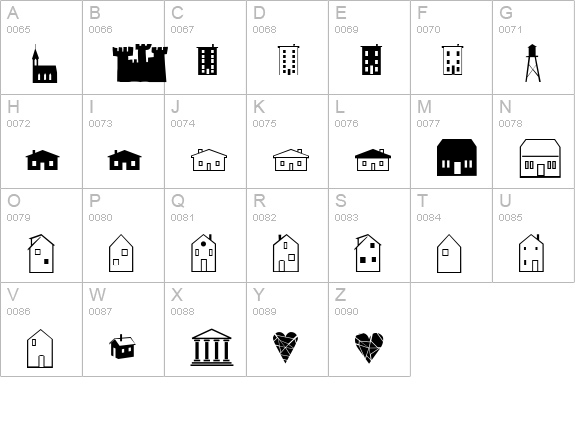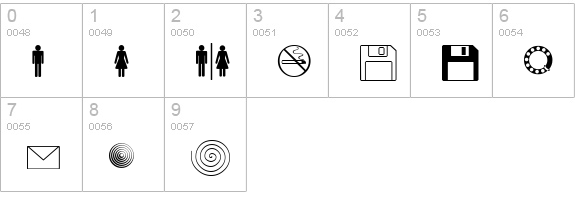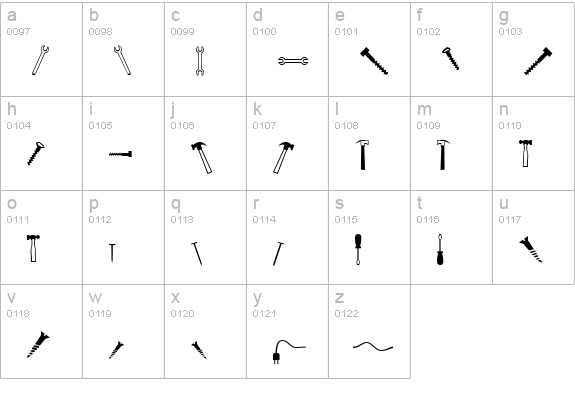
XIngyDingIII Font Details
XIngyDingIII font is a whimsical and creative typeface that is sure to add a touch of playfulness to any design project. With its unique and intricate characters, this font is perfect for adding a fun and quirky element to your work. Whether you're creating a poster, invitation, or logo, XIngyDingIII font will surely make your text stand out. The best part? XIngyDingIII font is completely free to download at FontsMarket.com. This means you can easily access this charming font and use it in your projects without any cost. So why wait? Add a splash of creativity to your designs with XIngyDingIII font today!